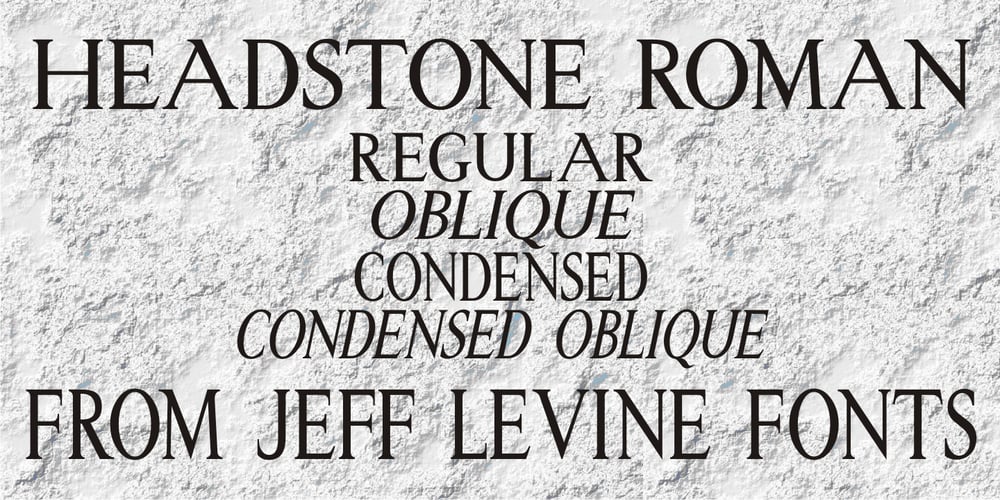
Headstone Roman JNL Font Family was designed by Jeff Levine and published by Jeff Levine. Headstone Roman JNL contains 4 styles and family package options. Despite its macabre-sounding name, Headstone Roman JNL is not a novelty font for Halloween or horror movies. Instead, it’s an attractive Roman typeface based on an example provided of a guide for stonecutters to use when cutting epitaphs into tombstones. Headstone Roman JNL is available in regular, oblique, condensed and condensed oblique versions.